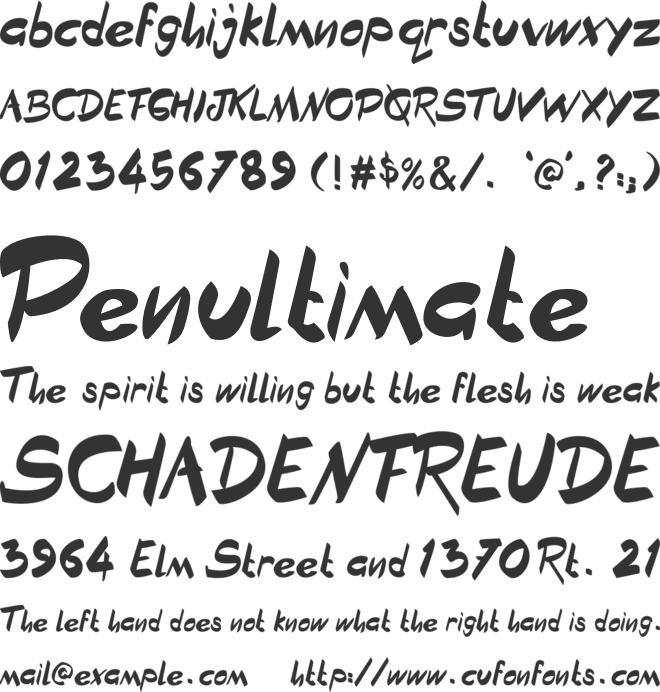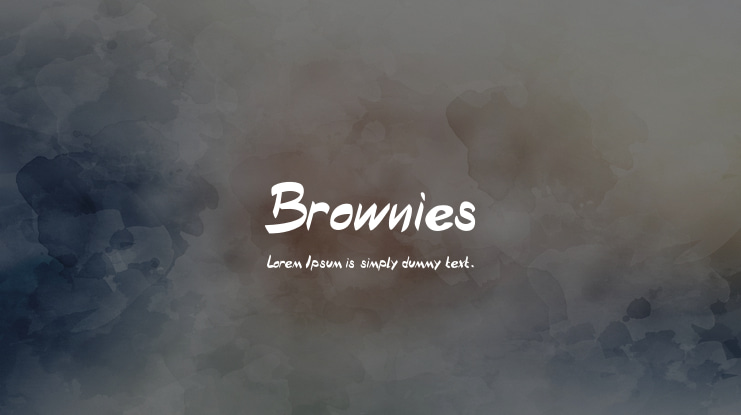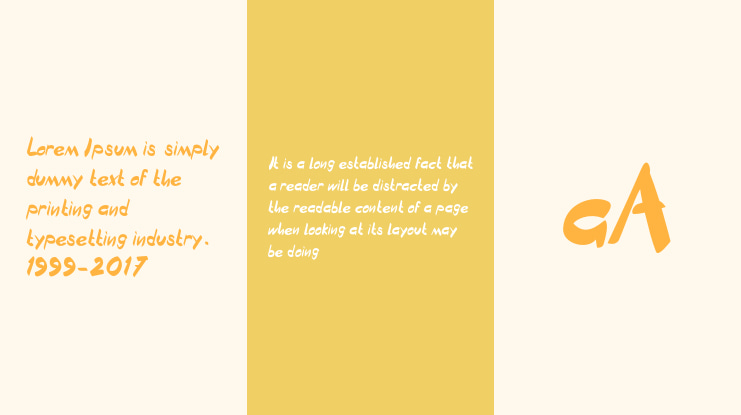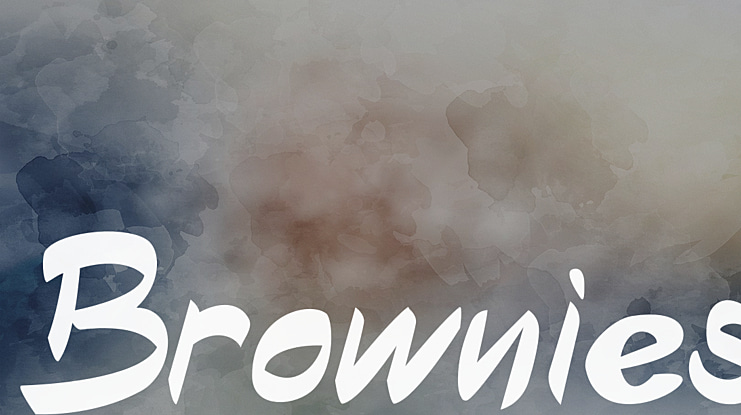
Brownies Font
Brownies, This font is a fun handwritten typeface with Complete Characters & Features, including Uppercase, lowercase, ligatures, numeral, punctuation, & stylistic alternates... Brownies Typeface can be used for various purposes. Such as headings, menus for your cafe & resto, titles, flyers, t-shirts, greeting cards, labels & packagings, posters, badges etc.Thanks for checking out Brownies, a bite now & then doesn't hurt!Commercial licensing is available at .